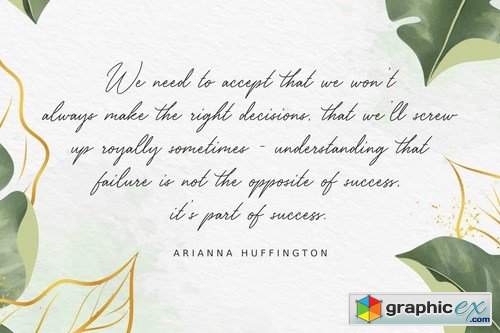
Sallythone
Sallythone is classy signature font. there are many alternate and ligatures in this font. Sallythone is suitable for branding projects,invitation cards, make some lettering a quote, websites, etc.